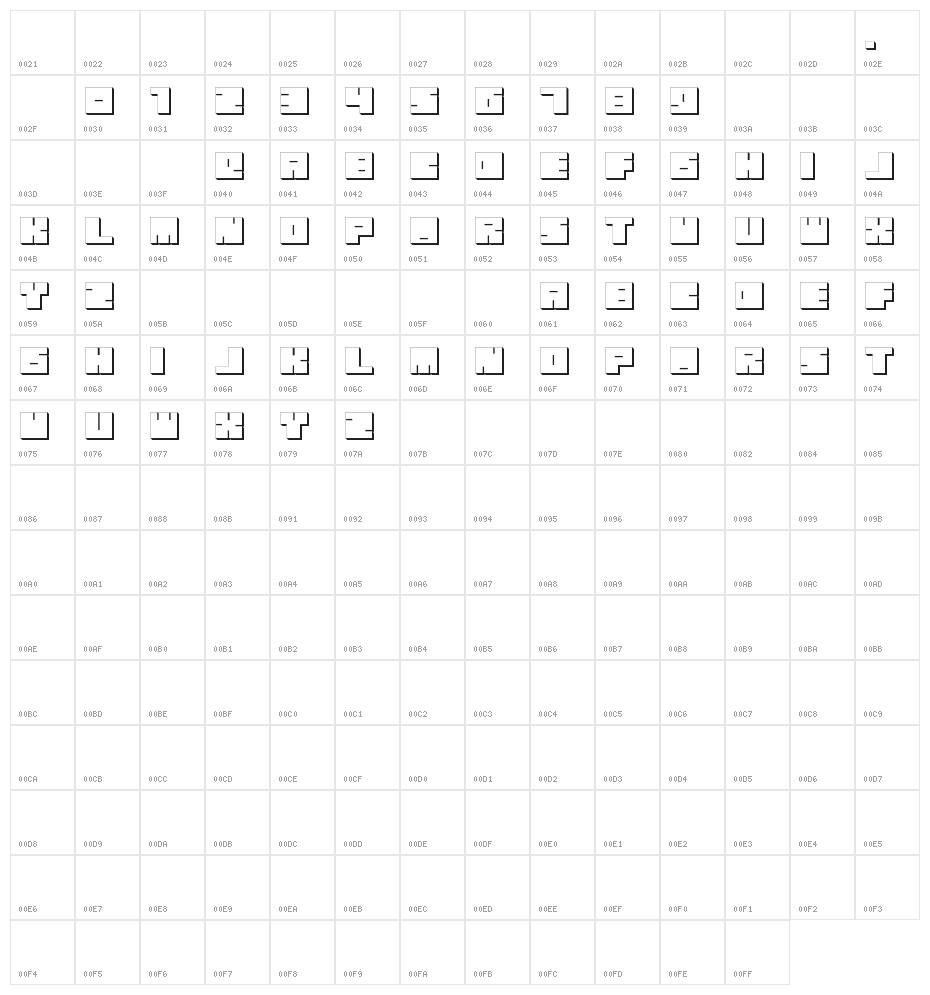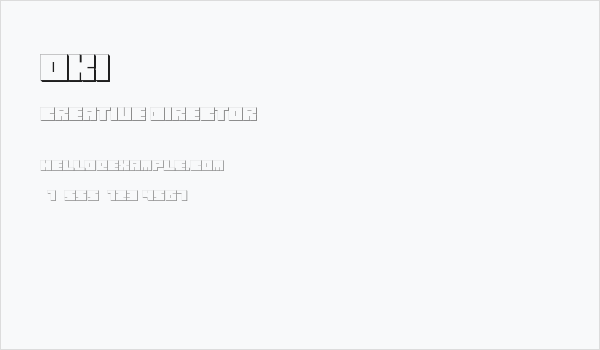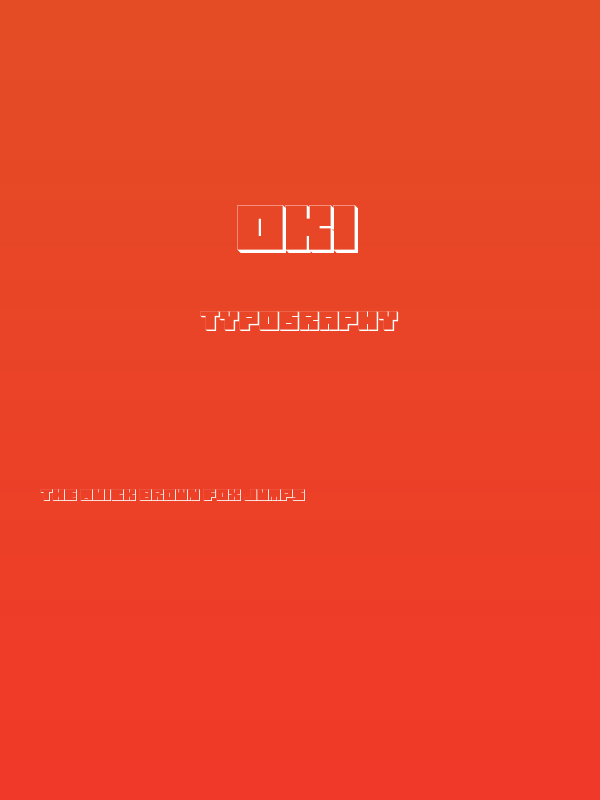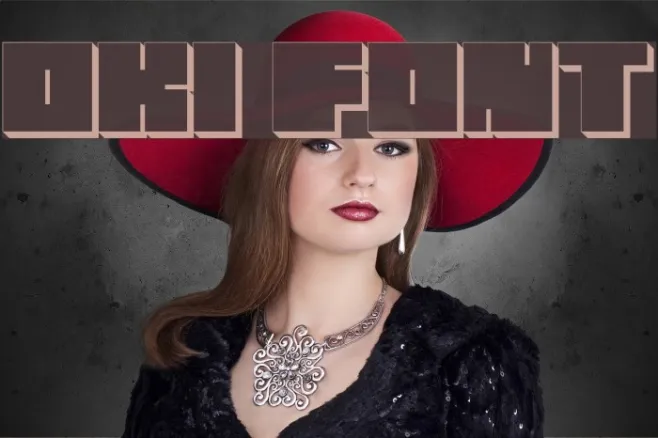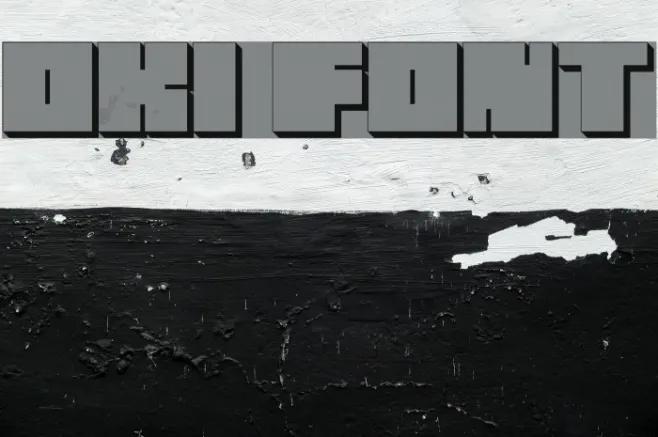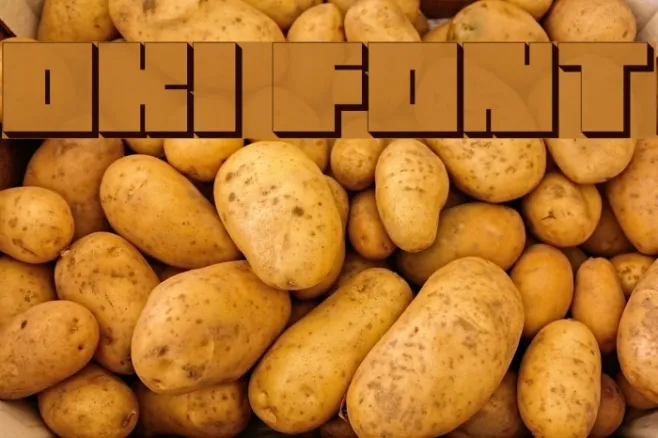
Oki Font
Oki Description
This font features a bold, blocky design with a three-dimensional effect, achieved through shadowing on the right side of each character. The letters are uniformly square-shaped, giving a modern and digital appearance reminiscent of pixel art or retro gaming aesthetics. The consistent thickness of the strokes and the geometric nature of the characters contribute to its strong visual impact. The font is highly legible and maintains a uniform height across all characters, including uppercase, lowercase, and numerals. The special characters are designed to match the overall blocky style, ensuring a cohesive look.
| Proposed Projects | Perfect for video game titles, tech-themed posters, digital art projects, and retro-style branding. |